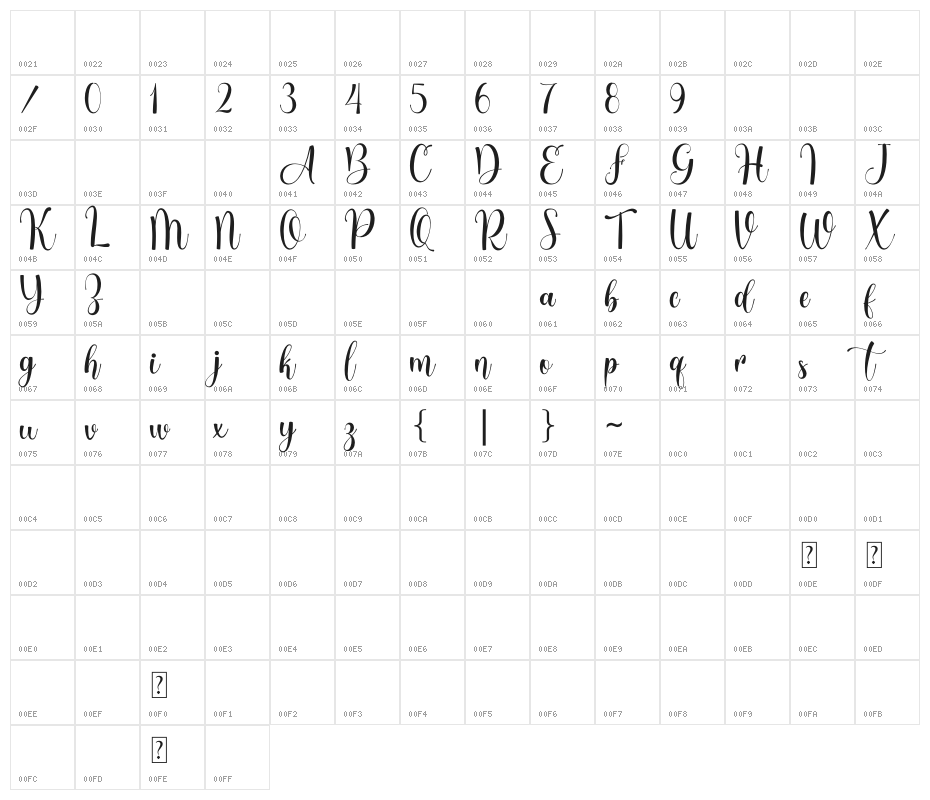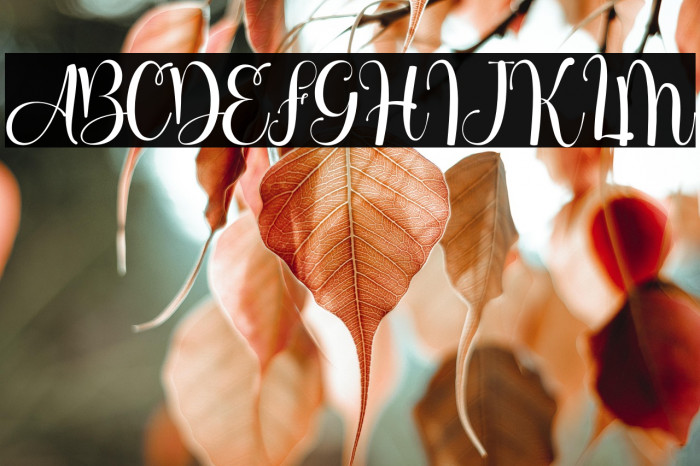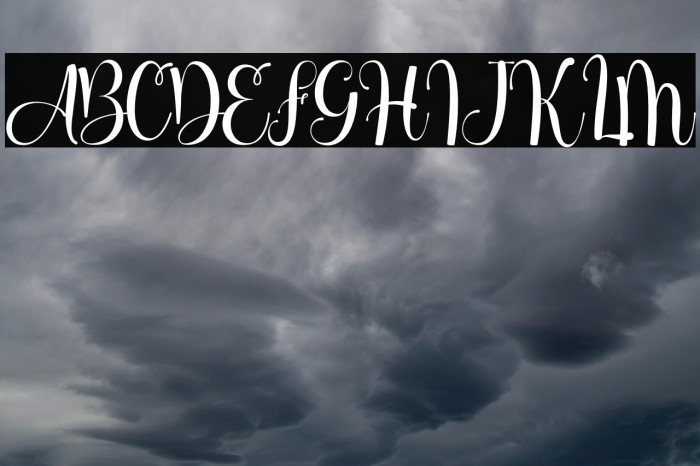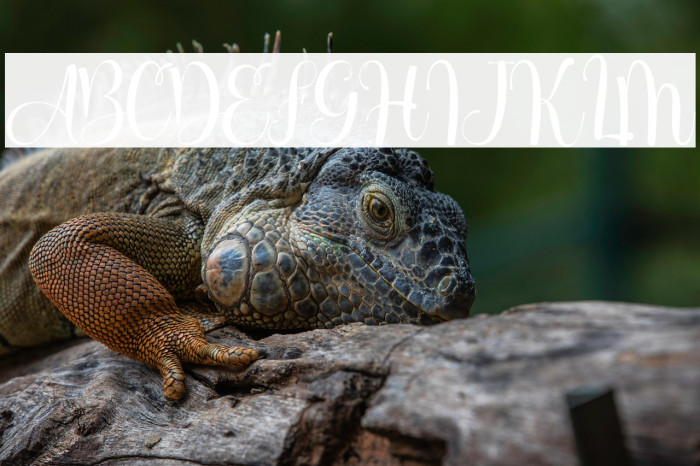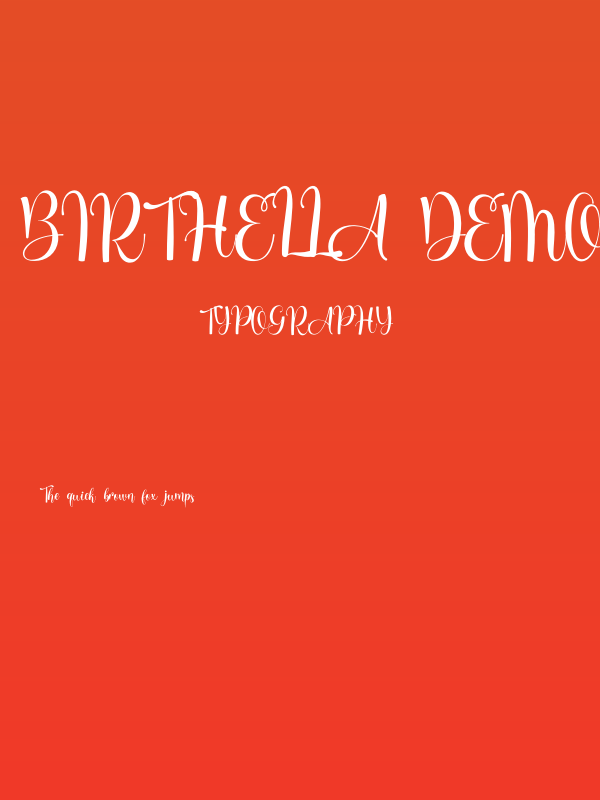
Birthella Demo Font
Birthella Demo Description
This font features an elegant and flowing script style, characterized by its intricate loops and swashes. The uppercase letters are particularly ornate, with extended flourishes that give a sense of movement and grace. The lowercase letters maintain a consistent flow, complementing the uppercase with their own subtle curves. The numbers are designed with a similar flair, ensuring a cohesive look across all characters. The overall appearance is sophisticated and artistic, making it suitable for decorative purposes. The font's style is reminiscent of calligraphy, offering a touch of classic elegance with a modern twist.